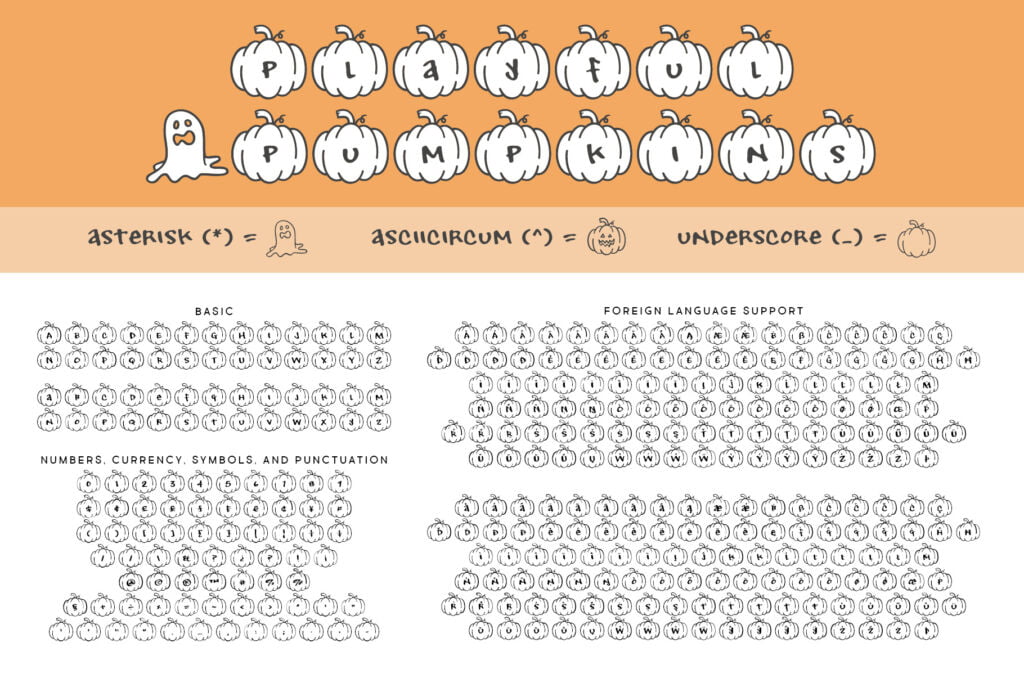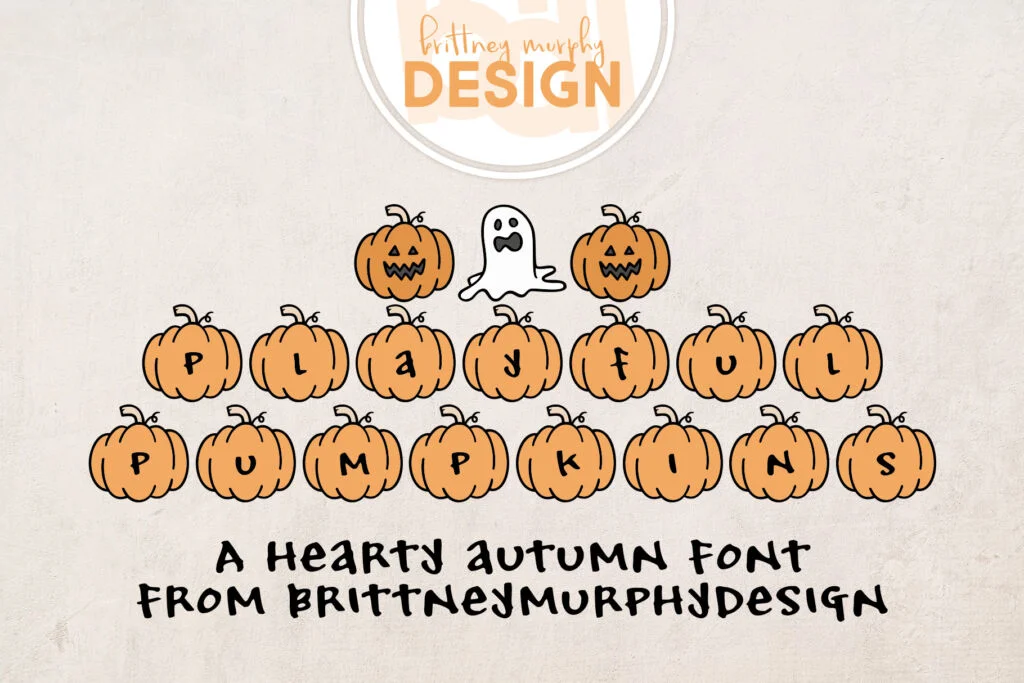
Playful Pumpkins Font
About the Playful Pumpkins Font
The Playful Pumpkins font is a fun picture font created in 2022 by Brittney Murphy Design.
Use the asterisk (*) for the ghost character.
Use the asciicircum (^) for a jack’o’lantern.
Use the underscore (_) for a blank pumpkin.
The Playful Pumpkins font makes it easy to add some fun autumn flair to your designs! Supports most Latin-based languages and the full version includes numbers.